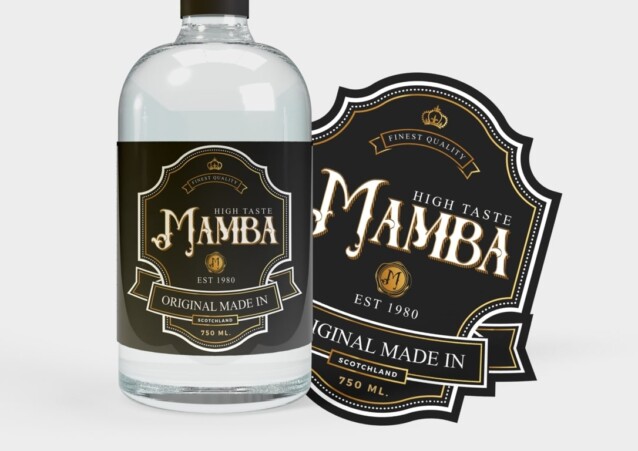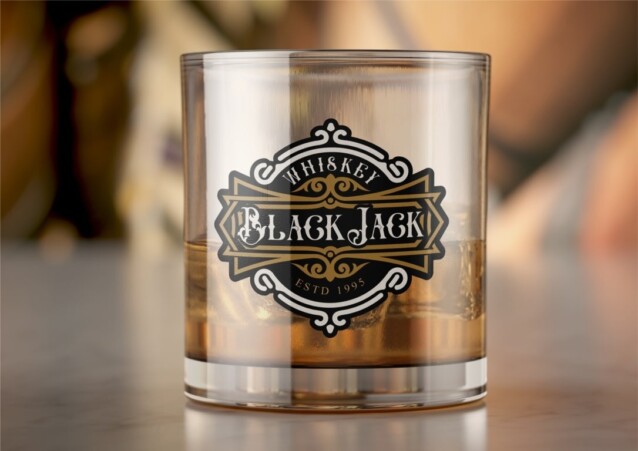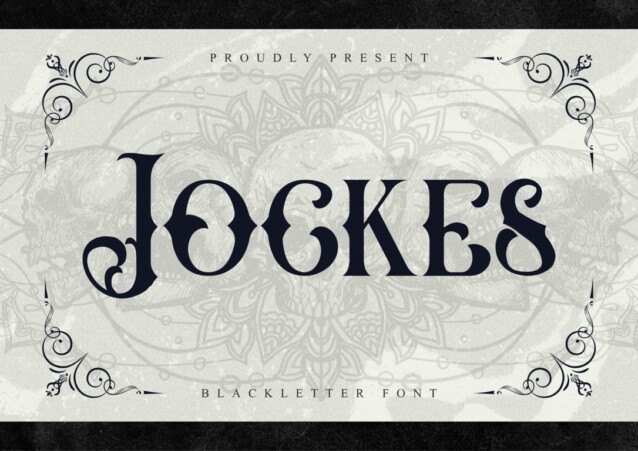
Jockes Font
Jockes Font is a new vintage font manufactured by Nomlimofont. inspired from vintage labels,and packages. Originally crafted as a display font for tattoo shops, drink labels, clothing brands, and more, Bedshire offers surprises beyond expectations. The font is enriched with an abundance of alternate characters, captivating flourish elements, and decorative ornaments derived from selected capital letter forms. Immerse yourself in the world of Jockes and let its distinctive charm captivate your designs.